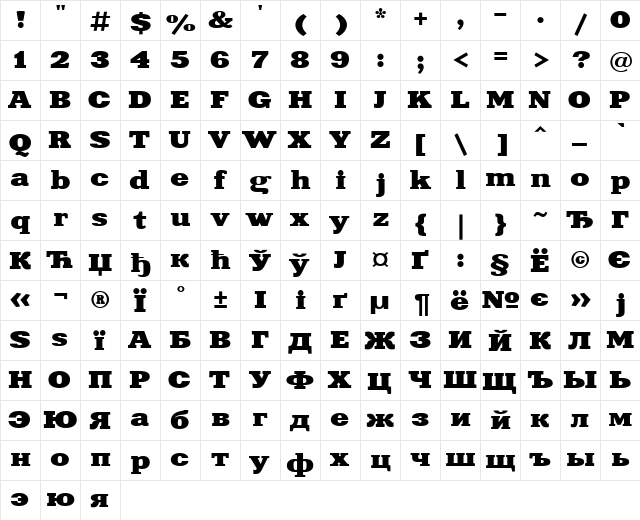
Xenia Extended Bold Cyrillic
Design Context for Xenia Extended Typeface
Xenia Extended takes a measured approach to typography — its balanced proportions and neutral character make it a reliable workhorse for both digital and print work. Its bold stroke weight gives it real presence on the page.